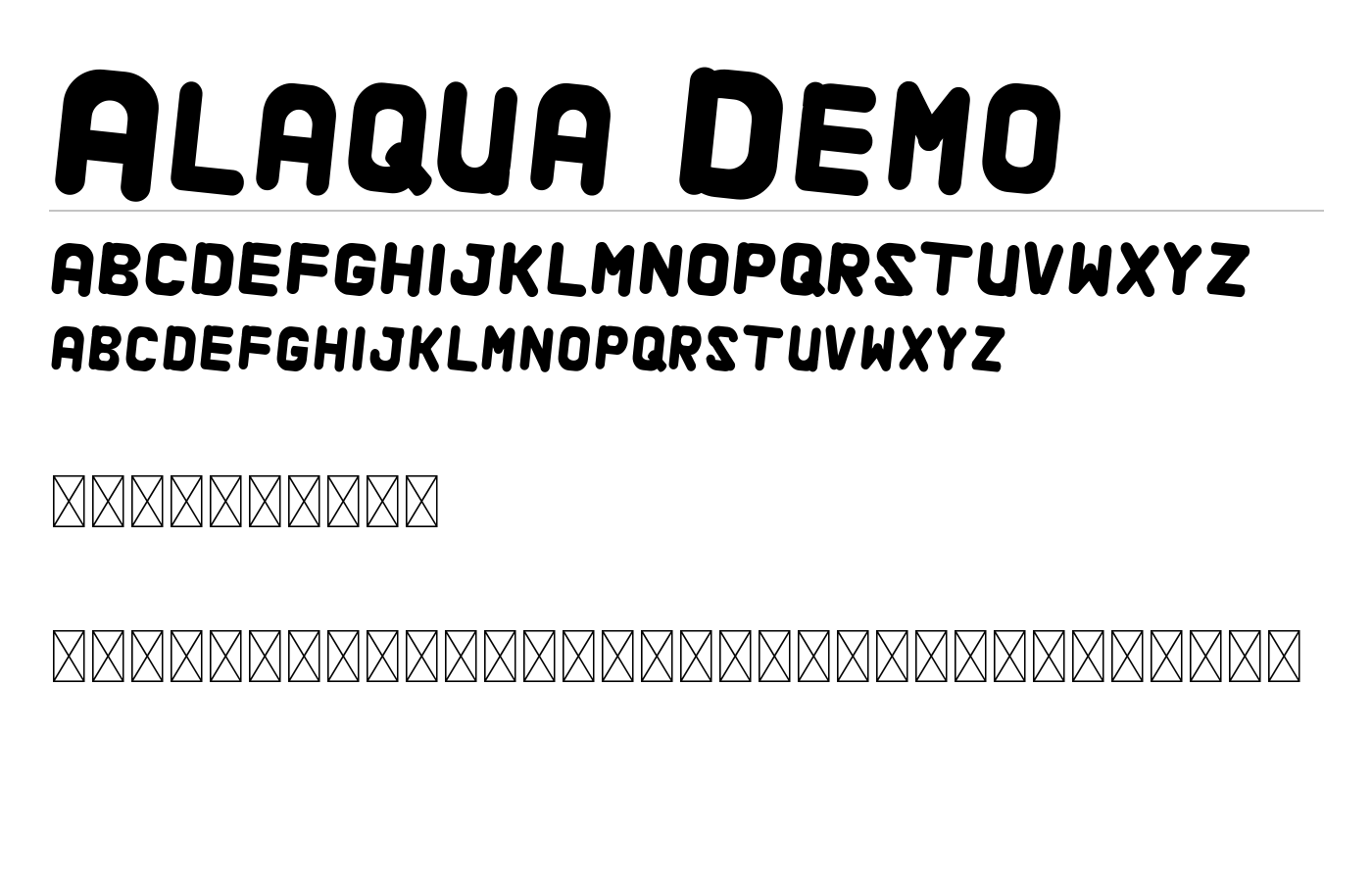
Alaqua Demo is a bold, playful sans serif font with rounded edges and a slightly condensed width, giving it a friendly and approachable character. Its irregular stroke shapes and quirky letterforms make it ideal for creative, casual branding and headlines that need a fun, informal vibe. This font works well in logos, posters, and packaging where a cheerful and distinctive style is desired.
Alaqua Demo Font
About Alaqua Demo Font
| Font family | Alaqua Demo Font |
| Designer | Renata Insan C |